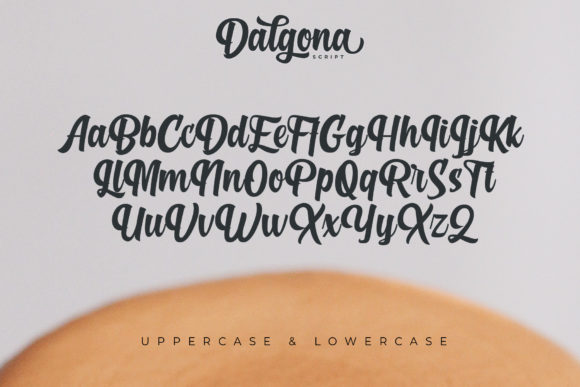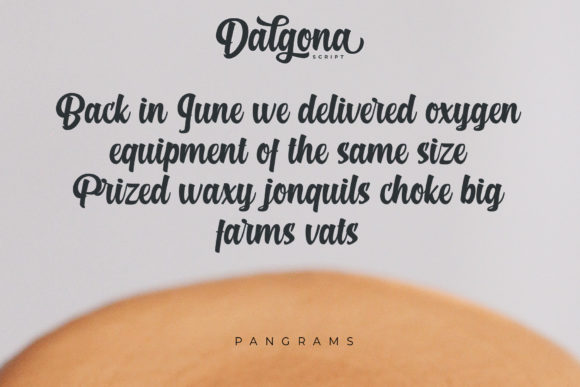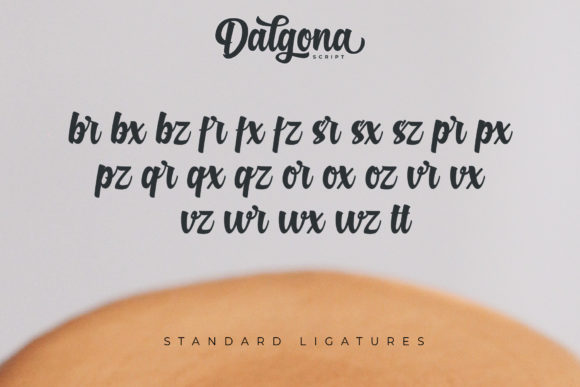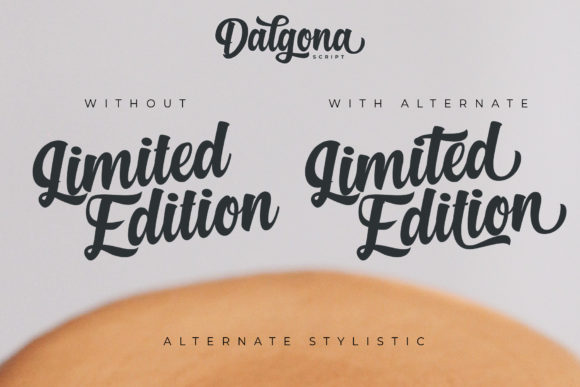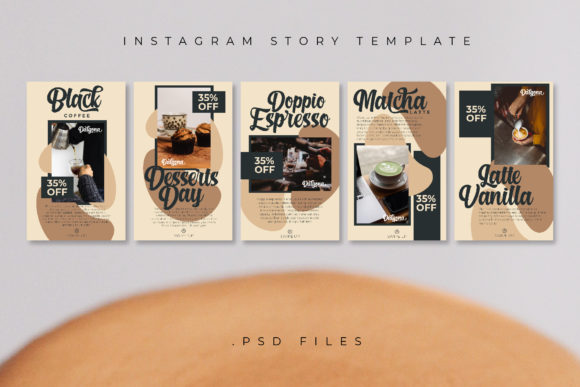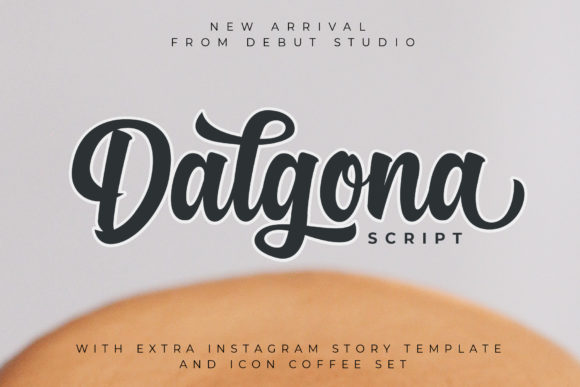
Dalgona Font: Elevate Your Designs with Elegance and Timeless Style
In the world of typography, fonts play a crucial role in conveying the tone and aesthetic of a design. For designers and crafters looking to add a touch of elegance and sophistication to their projects, the Dalgona Font is an excellent choice. This beautiful, flowing handwritten font is characterized by its unique blend of elegance and timelessness, making it perfect for a wide range of applications.
What is Dalgona Font?
Dalgona Font is a carefully crafted, handwritten typeface that exudes an air of refinement and poise. Its elegant touch is instantly noticeable, setting it apart from more mundane fonts. The font’s design is inspired by the art of handwriting, with each letter meticulously created to convey a sense of fluidity and movement. This results in a font that is not only visually appealing but also highly legible.
Key Features of Dalgona Font
• Elegant and Timeless Design: The Dalgona Font boasts an incredibly distinct and timeless style that will make your designs stand out. Its classic appeal ensures that it won’t go out of fashion anytime soon.
• Flowing Handwritten Style: The font’s flowing, handwritten aesthetic adds a personal touch to any project. It’s perfect for designs that require a more human and approachable feel.
• High Versatility: Whether you’re working on a branding project, a website, a craft project, or any other design endeavor, the Dalgona Font can be seamlessly integrated to enhance the visual appeal.
• Easy to Read: Despite its elegant and artistic design, the Dalgona Font maintains a high level of legibility, making it suitable for both headings and body text.
Uses of Dalgona Font
The versatility of the Dalgona Font makes it an excellent choice for a variety of design projects. Here are some of the ways you can use this beautiful font:
• Branding and Logotypes: Create a lasting impression with a unique and elegant logotype that captures the essence of your brand.
• Web Design: Enhance the user experience of your website with a font that is both visually appealing and easy to read.
• Stationery and Invitations: Add a touch of elegance to your stationery, invitations, and greeting cards.
• Craft Projects: Whether you’re designing for scrapbooking, DIY projects, or handmade crafts, the Dalgona Font can add a personalized and artistic touch.
• Social Media Graphics: Stand out on social media with eye-catching graphics and posts that utilize the Dalgona Font.
Why Choose Dalgona Font?
In a sea of fonts, the Dalgona Font stands out for several reasons:
• Uniqueness: Its distinct style ensures that your designs will have a unique look that sets them apart.
• Elegance: The font’s elegant design makes it perfect for projects that require a sophisticated touch.
• Timelessness: Unlike trendy fonts that may quickly become outdated, the Dalgona Font has a timeless quality that ensures your designs will remain stylish for years to come.
Font Name Dalgona Font
Author Debut Studio
The Dalgona Font is a beautiful, elegant, and versatile typeface that can elevate your designs to new heights. Its unique blend of elegance and timeless style makes it an excellent choice for designers and crafters looking to create spectacular designs. Whether you’re working on a professional project or a personal craft, the Dalgona Font is sure to inspire and enhance your creative endeavors. So, fall in love with its distinct style and make it a part of your design toolkit today.